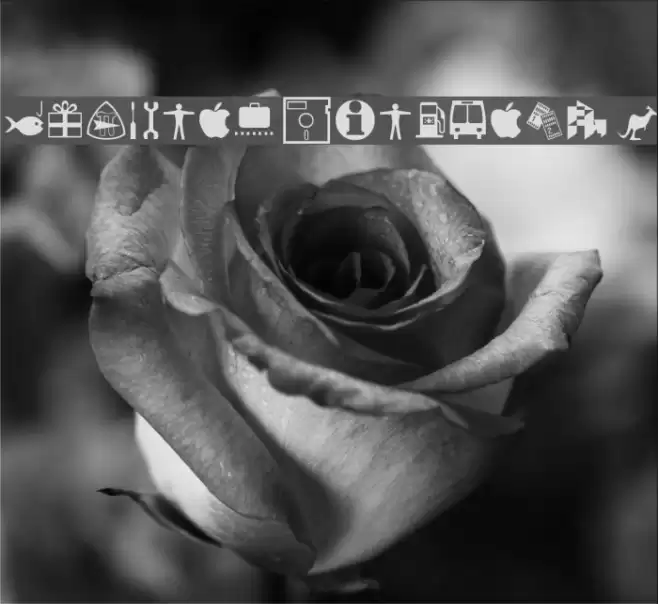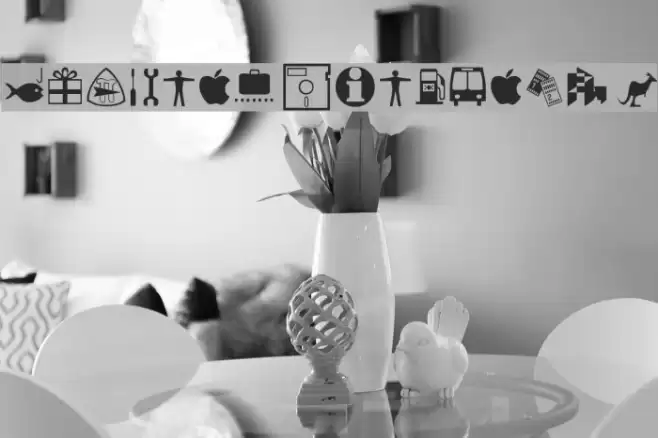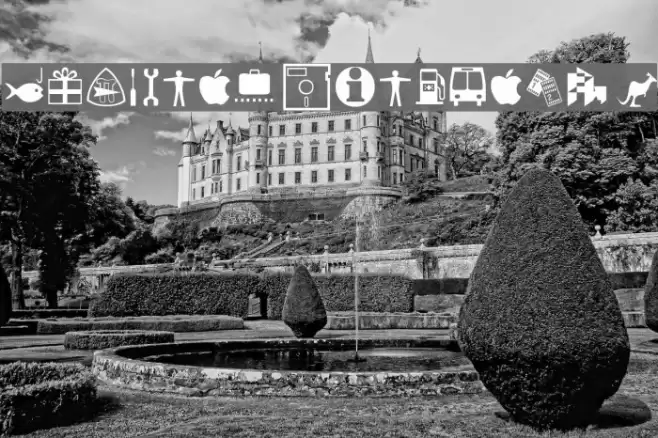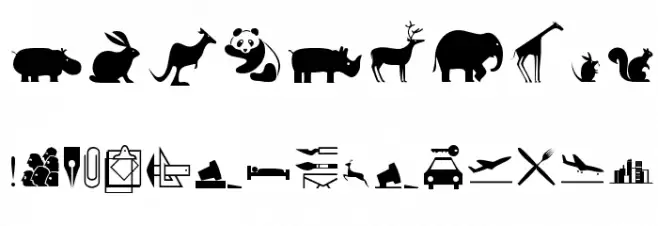
This collection features a diverse array of pictograms and symbols, ranging from transportation icons like airplanes and buses to everyday objects such as clocks and scissors. The style is bold and clear, making it suitable for signage and instructional materials. The icons are designed with simplicity and clarity in mind, ensuring they are easily recognizable at a glance. The set includes symbols for accessibility, gender, and various activities, providing a comprehensive toolkit for communication in public spaces.
A versatile set of bold, clear pictograms ideal for signage and instructional use from Uncategorized fonts.
- Proposed Projects: Ideal for creating public signage, instructional guides, educational materials, and user interface design.
- Use Case: Signage, Instructional materials, User interfaces